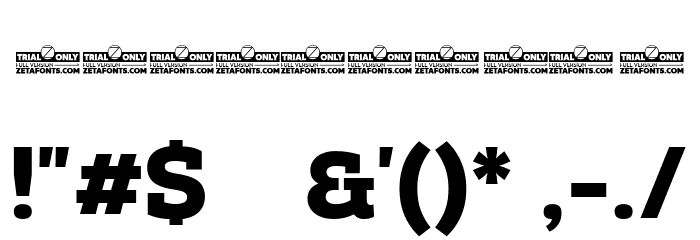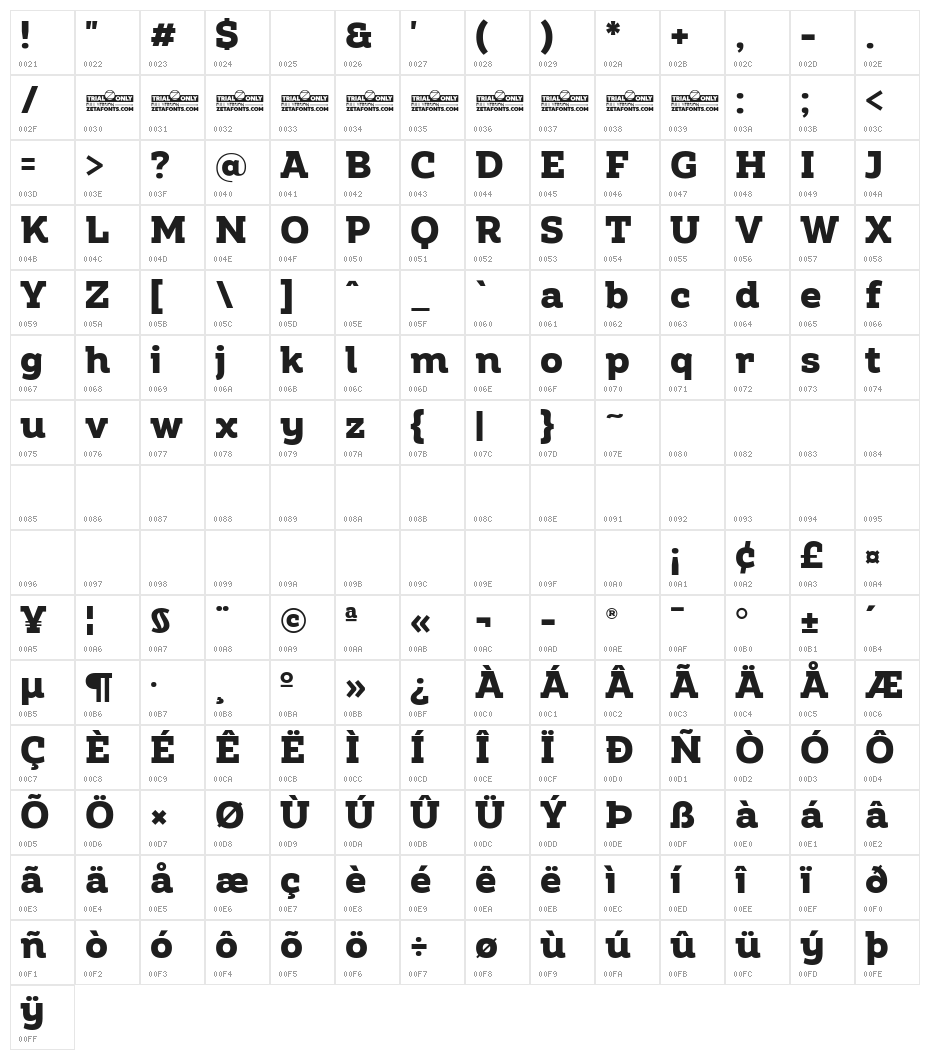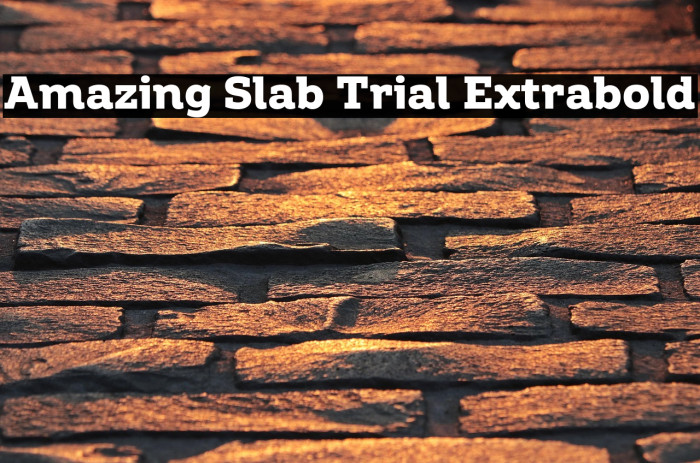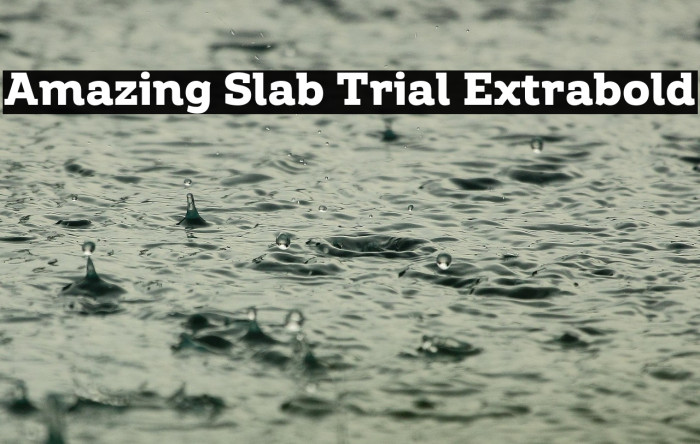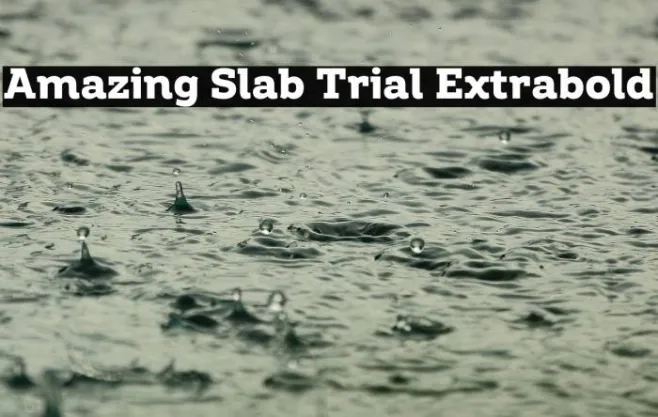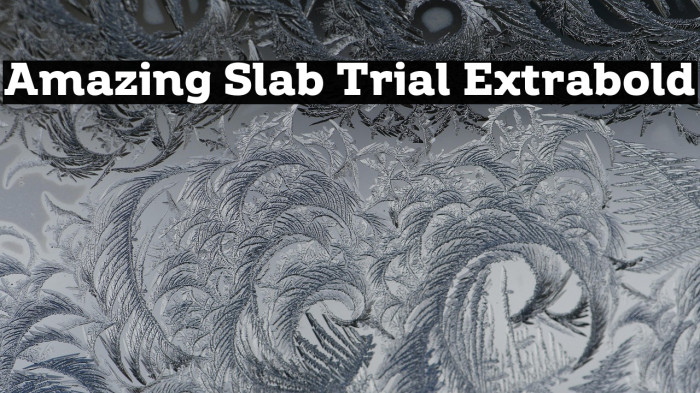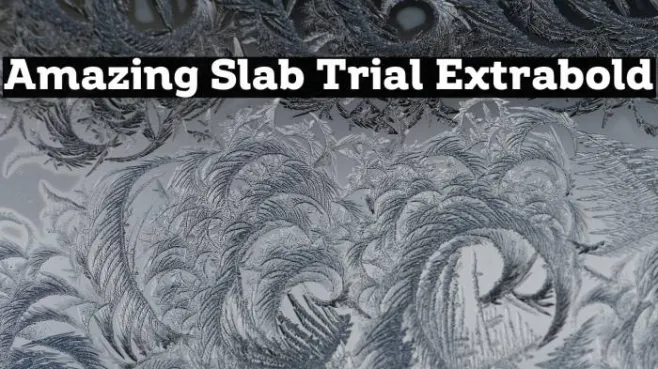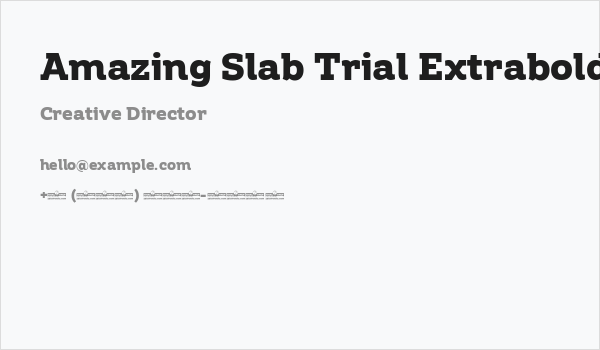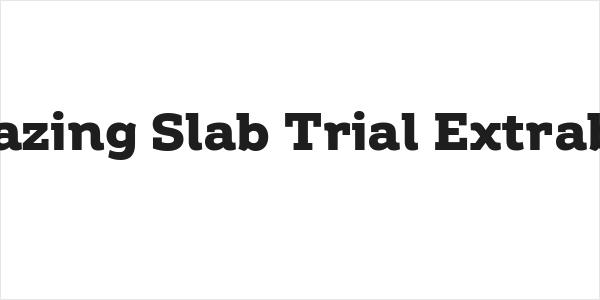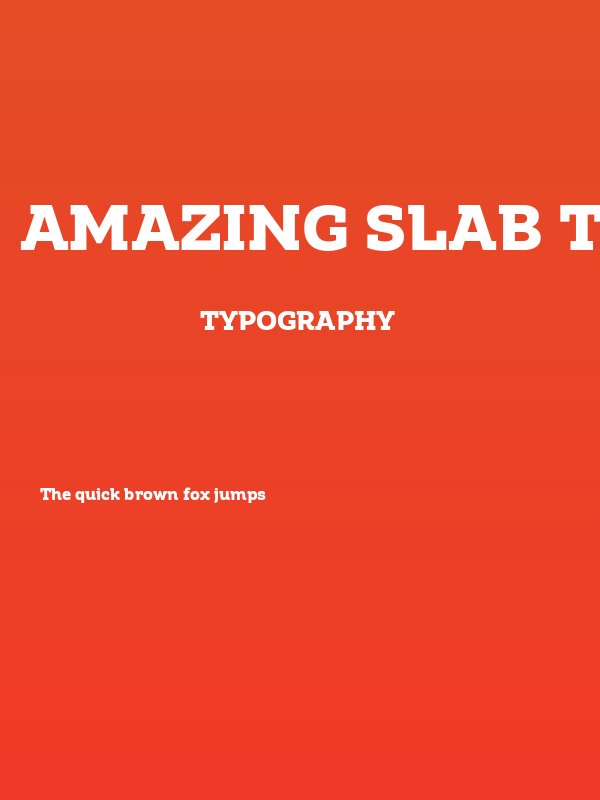
Amazing Slab Trial Extrabold Font
Amazing Slab Trial Extrabold Description
This font is a robust and bold slab serif typeface that exudes strength and confidence. The characters are designed with thick, block-like serifs that provide a solid foundation, making it ideal for impactful headlines and attention-grabbing text. The uppercase and lowercase letters maintain a consistent weight, ensuring readability and uniformity across different sizes. The numerals and special characters are crafted with the same boldness, offering a cohesive look throughout. Its design is both modern and timeless, suitable for a variety of design projects.